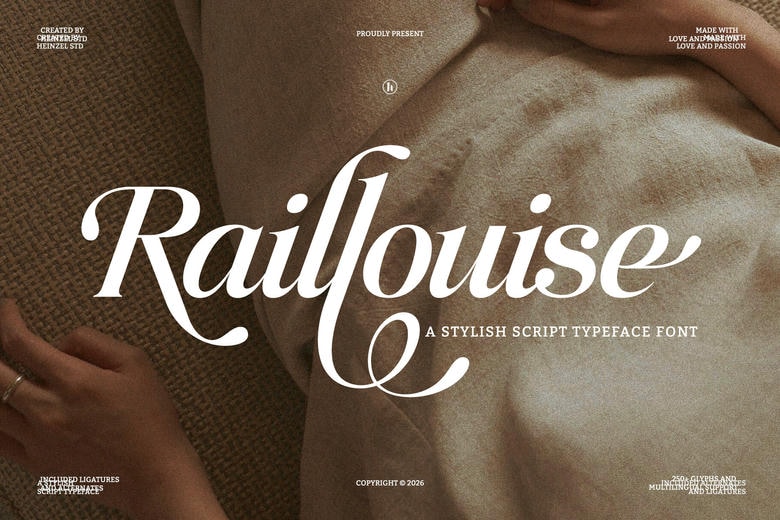
Raillouise Font
Raillouise is a fashionable script typeface that combines the contemporary sophistication with the classical calligraphy. This font is created with smooth curves, flowing lines, and elegant ligatures that provide a luxurious and feminine touch that is ideal in branding, wedding invitations, logos, packaging, and social media designs.
Its natural handwritten appearance gives it a natural and elegant appearance, and the well-designed alternates and swashes make it versatile and attractive to any project. Raillouise is the perfect choice when a designer wants a high-end script font that is both graceful and personal.
Raillouise Script Font